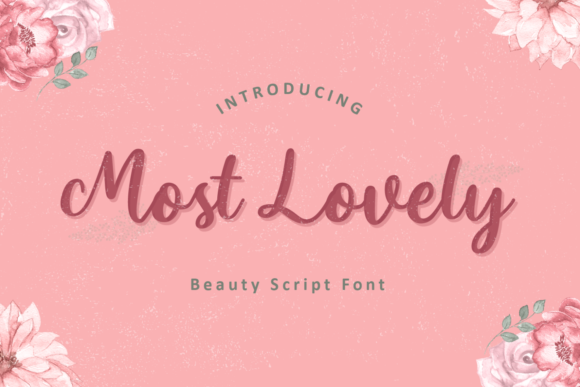
**Introducing Most Lovely Font: The Epitome of Grace and Charm**
Prepare to be captivated by Most Lovely Font, a script masterpiece that will elevate your designs to new heights. This exquisite handwritten font dances across the page with its delicate strokes and perfectly balanced letters, leaving an undeniable impression on all who behold it.
**A Font of Unrivaled Versatility**
Most Lovely Font is not just another font; it's a versatile chameleon that adapts seamlessly to any design vision. Whether you're crafting heartfelt love letters, designing enchanting invitations, or creating eye-catching social media posts, this font will effortlessly enhance your creations.
**The Perfect Choice for Modern Memes**
In the realm of modern memes, where humor knows no bounds, Most Lovely Font reigns supreme. Its playful and relatable style will infuse your memes with a touch of sophistication, making them stand out from the crowd. Prepare to generate endless laughter and shareable moments with this font as your secret weapon.
**A Font That Inspires Wonder**
Most Lovely Font is more than just a collection of letters; it's an invitation to experience the beauty of written words. Its enchanting curves and whimsical details will spark your imagination and inspire you to create designs that touch the heart.
**Fall Head Over Heels for Most Lovely Font**